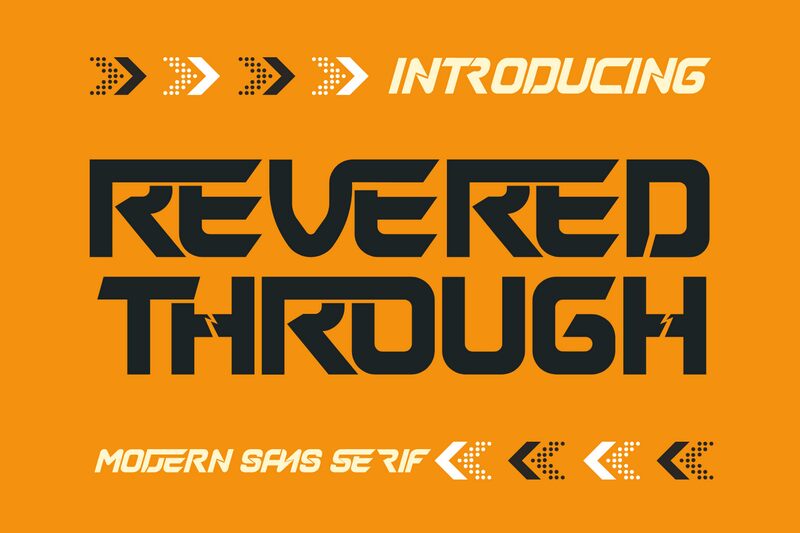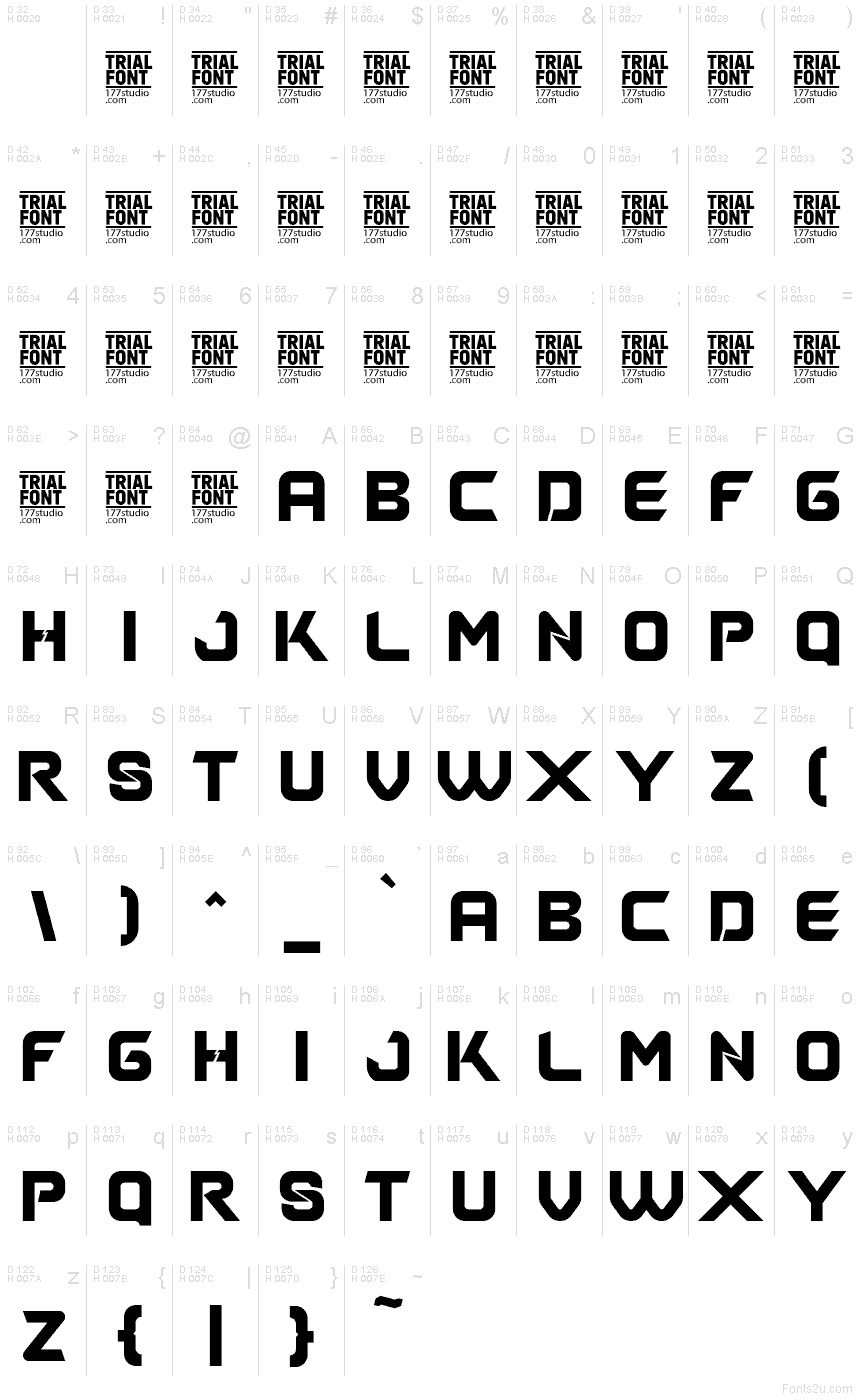
Revered Through Demo Regular
Revered Through font by 177Studio is a free techno display typeface that looks like it’s been carved from steel and wired for neon. Sharp angular cuts, tight spacing, and those chunky vertical strokes create a brutal, futuristic rhythm that feels both mechanical and ritualistic. The letters lock together almost like a digital stencil, giving every word a strong, unified silhouette that grabs attention instantly.
Using Revered Through, you get a bold voice for sci-fi posters, game titles, esports branding, album covers, tech event flyers, and edgy product packaging. This free font thrives at large sizes where its geometric wedges and blocky forms can really punch through the layout. Try pairing it with a clean, neutral sans serif for body text to keep the overall system readable while letting Revered Through handle the impact moments.